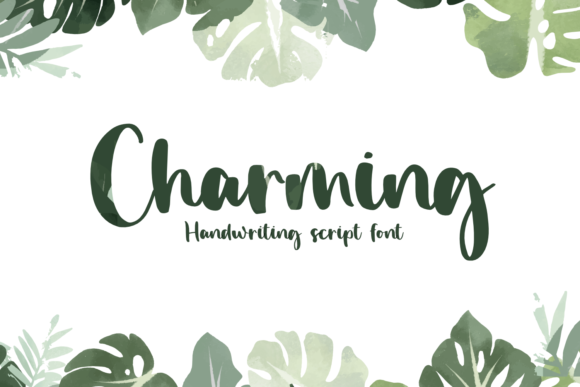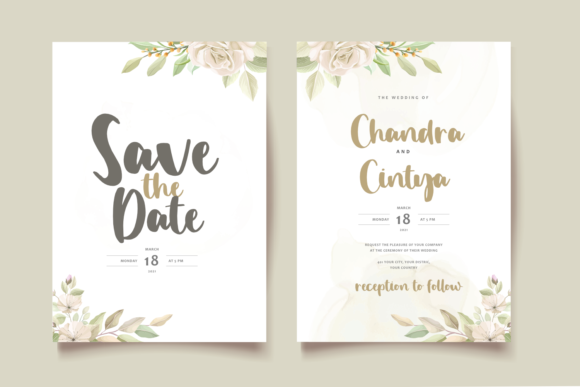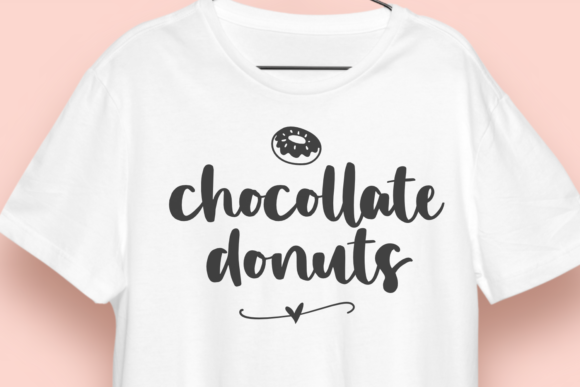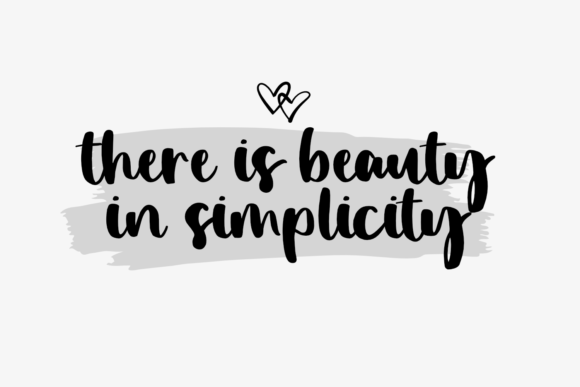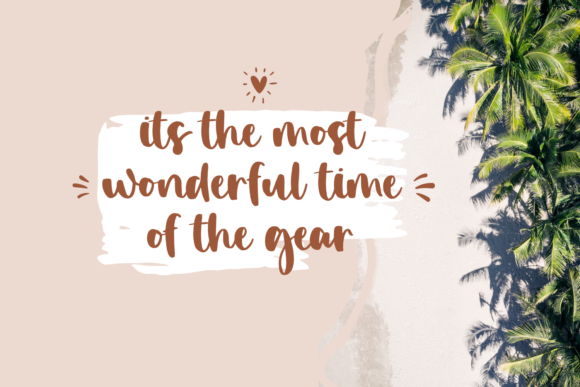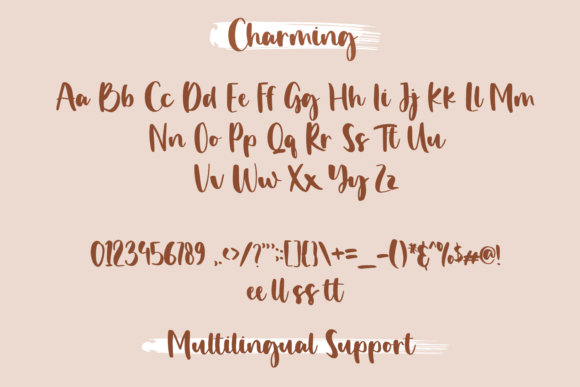
The Perfect Font for Every Story
Have you ever found yourself staring at a blank page, struggling to find the right words to bring your creative vision to life? It’s a feeling many designers know all too well. But what if you had a secret tool in your arsenal to make your creations shine? Enter the Charming Font, a casual script font that’s about to become your new best friend.
This delightful font is designed to add a touch of warmth and personality to any project, from elegant invitations to playful social media posts. Its versatility makes it an incredibly valuable asset to any designer’s library, capable of elevating even the most mundane designs into something truly special.
With the Charming Font, you’ll be able to convey your message in a way that’s both authentic and engaging. Whether you’re a seasoned pro or just starting out, this font is sure to become a go-to favorite in your design toolkit.
Key Features of Charming Font
- Font Family: Charming Font is a beautiful script font that comes in 4 font styles: Regular, Italic, Bold, and Bold Italic.
- Unique Characteristics: Charming Font features a unique, hand-drawn design with elegant curves and flourishes, perfect for adding a touch of sophistication to your designs.
Charming Font Review
Overall, I’m quite fond of the Charming Font, but as with any design, it’s not without its quirks.
- Beautiful, elegant script-style font, perfect for adding a touch of sophistication to designs.
- Works well for headings, titles, and short paragraphs where a more formal tone is desired.
- Easy to read, even at smaller font sizes, making it a great choice for body text.
- Not ideal for body text in longer documents, as the script style can be tiring to read at length.
- Lack of italic or bold versions can limit its versatility in certain design scenarios.
- Not suitable for very technical or informative content, where a more straightforward font might be preferred.
Overall, I think the Charming Font is a great choice for designers who want to add a touch of elegance to their work. While it may not be suitable for every design scenario, it’s a great addition to any font collection.
Tip: Use Charming Font for headings and titles to add a touch of elegance to your designs.
Tip: Use Charming Font for typography-heavy designs, such as posters or magazine layouts.
Tip: Use Charming Font for presentations or documents that require a touch of sophistication.
Charming Font is perfect for:
- Branding and logo designs
- Typography-heavy designs, such as posters or magazine layouts
- Presentation and document designs that require a touch of sophistication
Remember to use Charming Font sparingly and thoughtfully to add a touch of elegance to your designs.
Alternatives to Charming Font for Designers
Cambria
Cambria is a serif font known for its elegant and refined appearance. It’s ideal for use in body text, especially in longer passages or documents where readability is crucial. Compared to Charming Font, Cambria is more formal and less playful, making it suitable for professional and academic contexts.
Playfair Display is an elegant and luxurious script font that adds a touch of sophistication to any design. It’s perfect for use in headings, titles, and other display text where a high-end feel is desired. Unlike Charming Font, Playfair Display has a more dramatic and opulent quality, making it ideal for luxury brands or high-end marketing materials.
Arial
Arial is a clean and modern sans-serif font that’s highly legible and versatile. It’s suitable for use in body text, headings, and even display text, making it a great alternative to Charming Font for everyday design projects. Compared to Charming Font, Arial is more neutral and less decorative, making it a great choice for designs that require a clean and simple aesthetic.